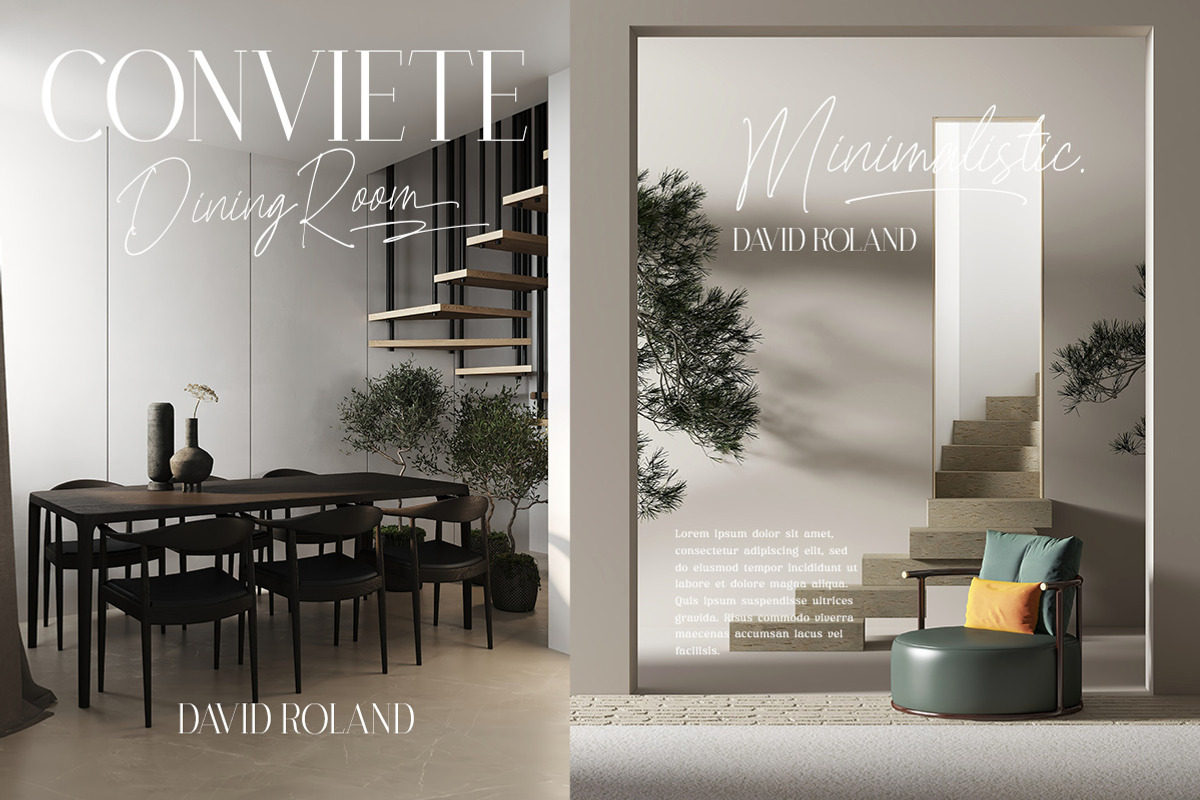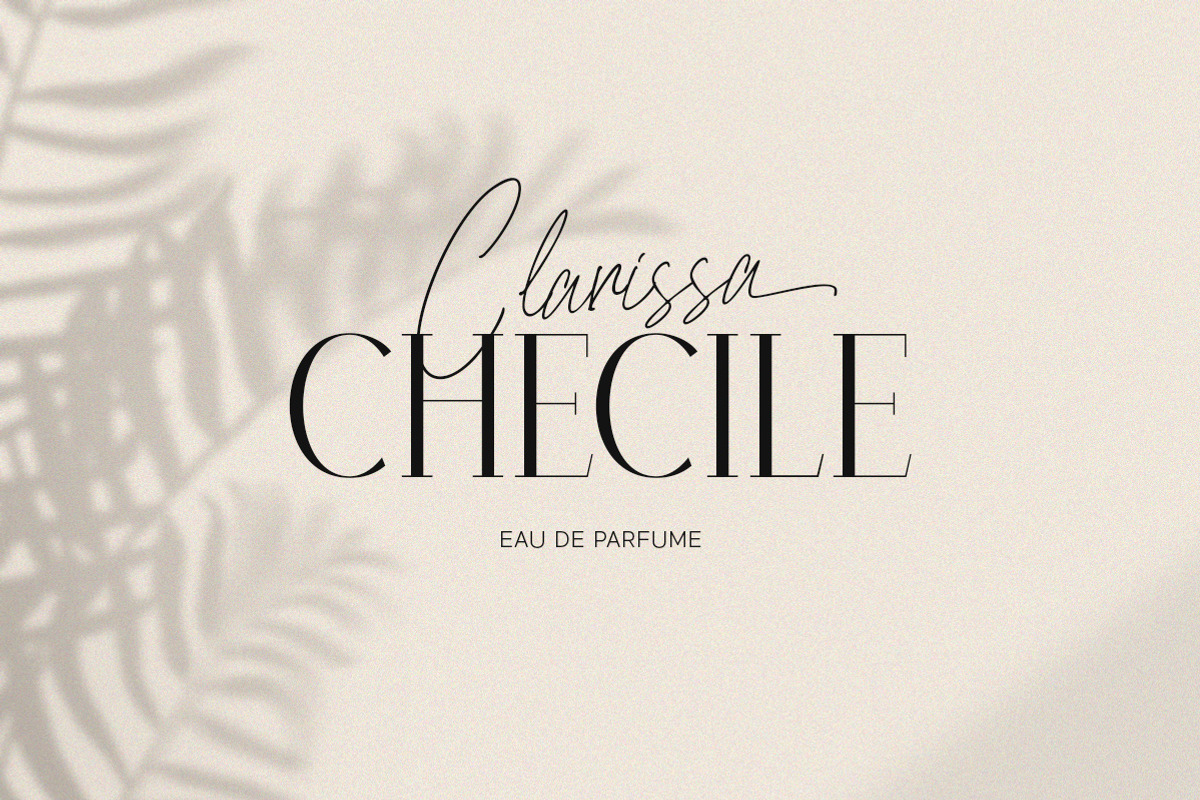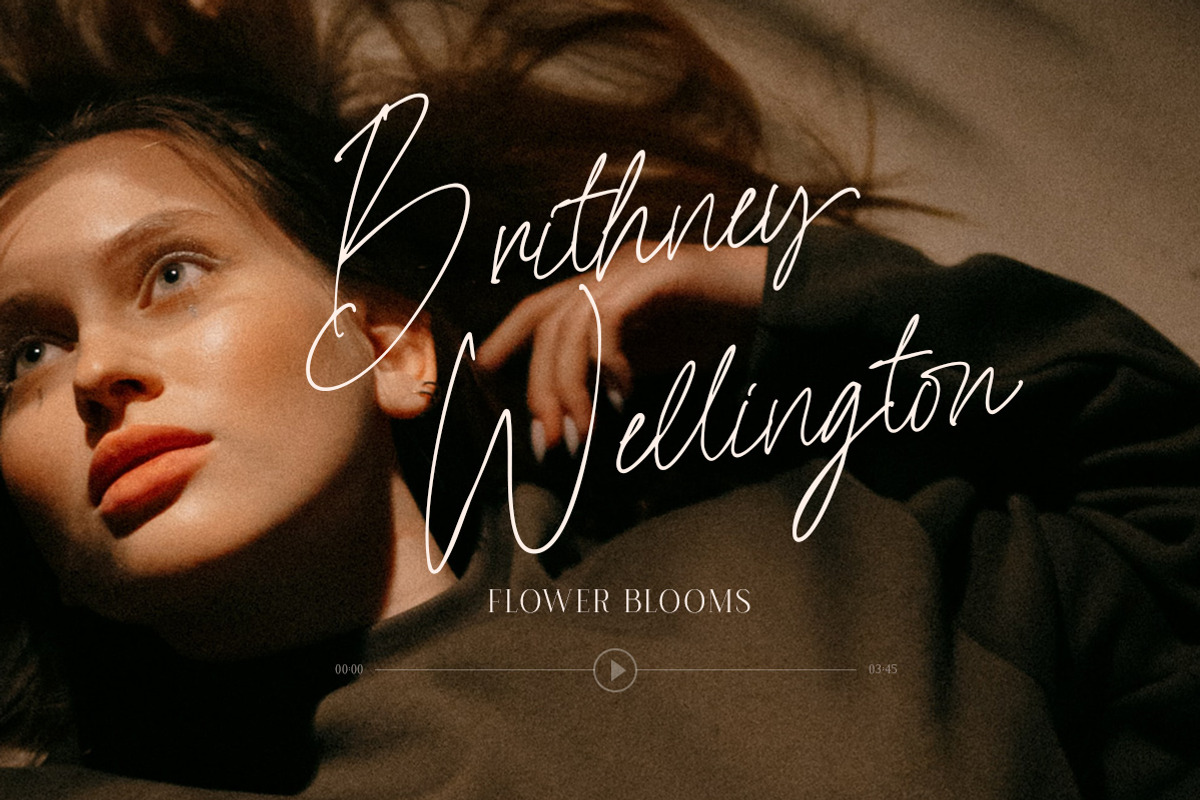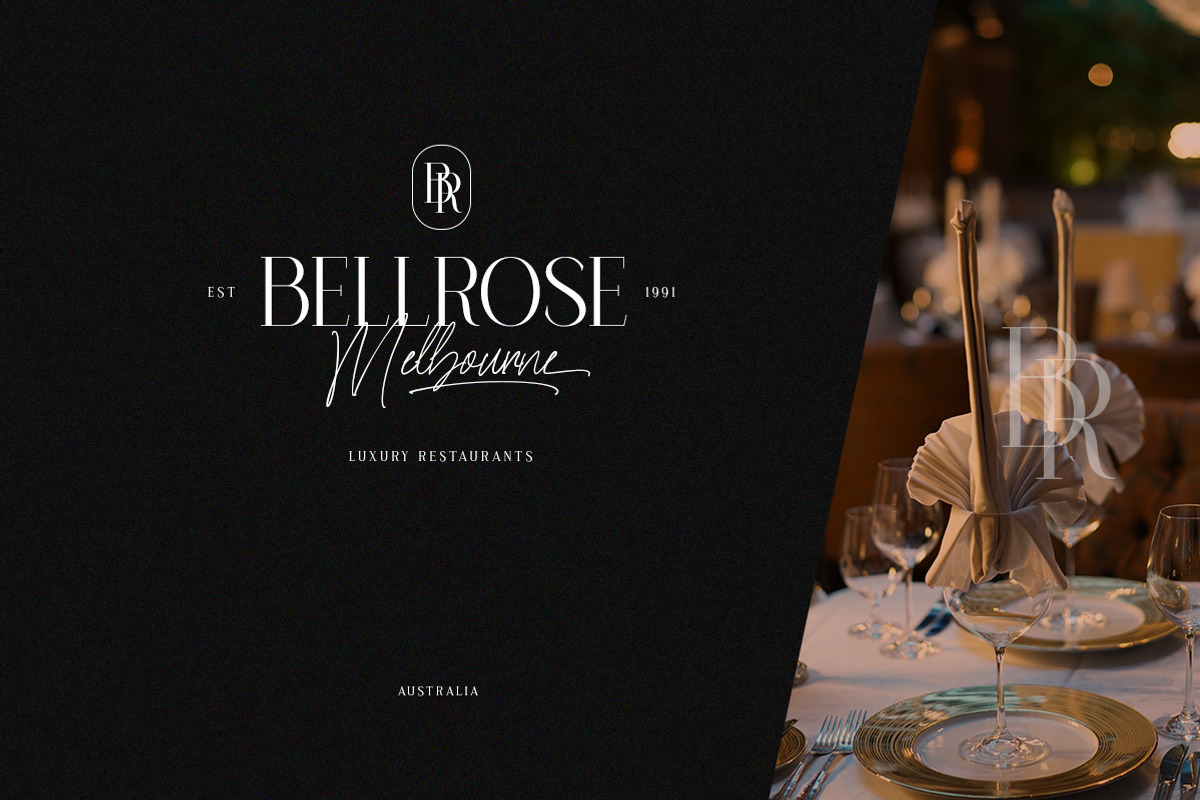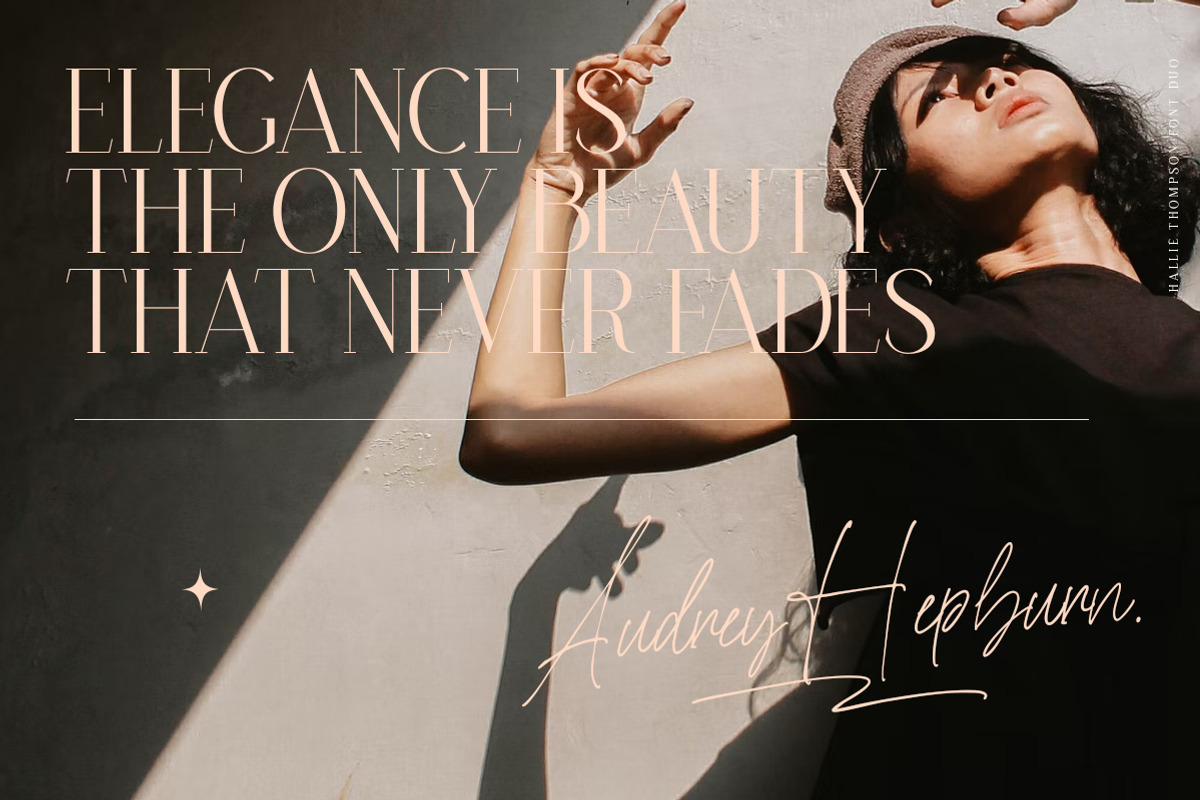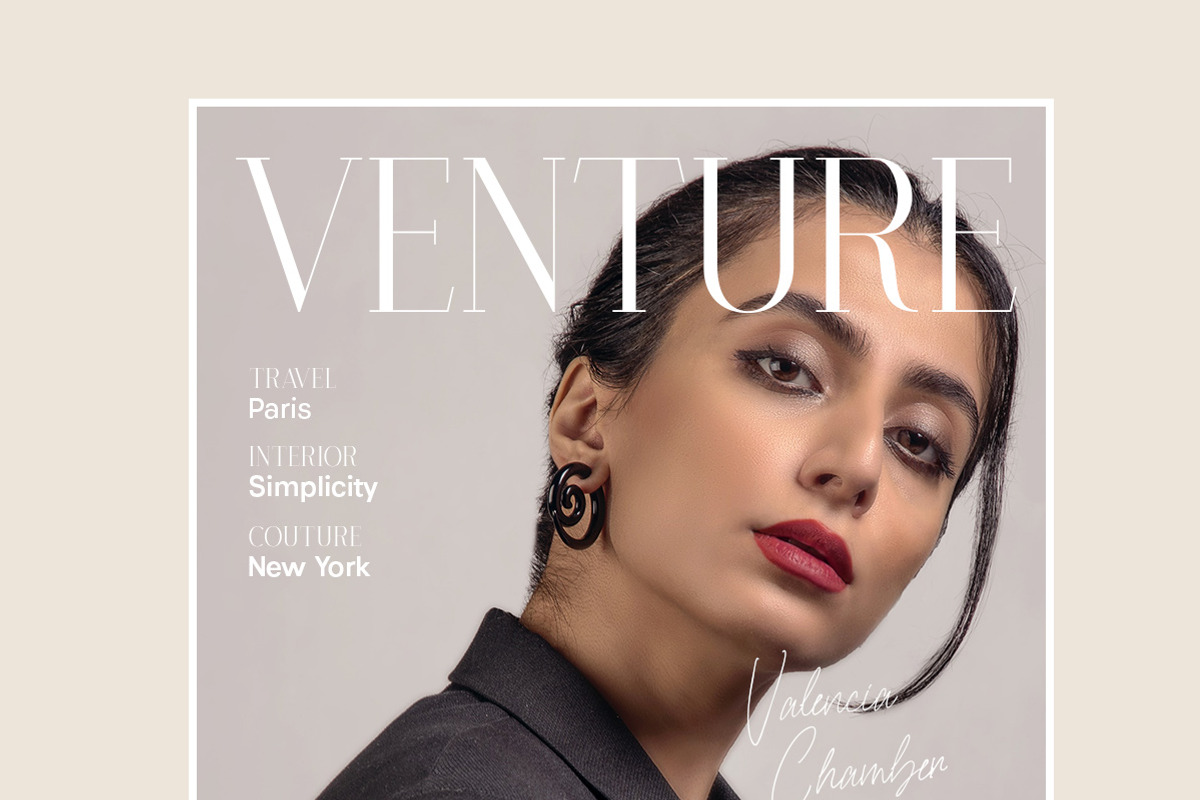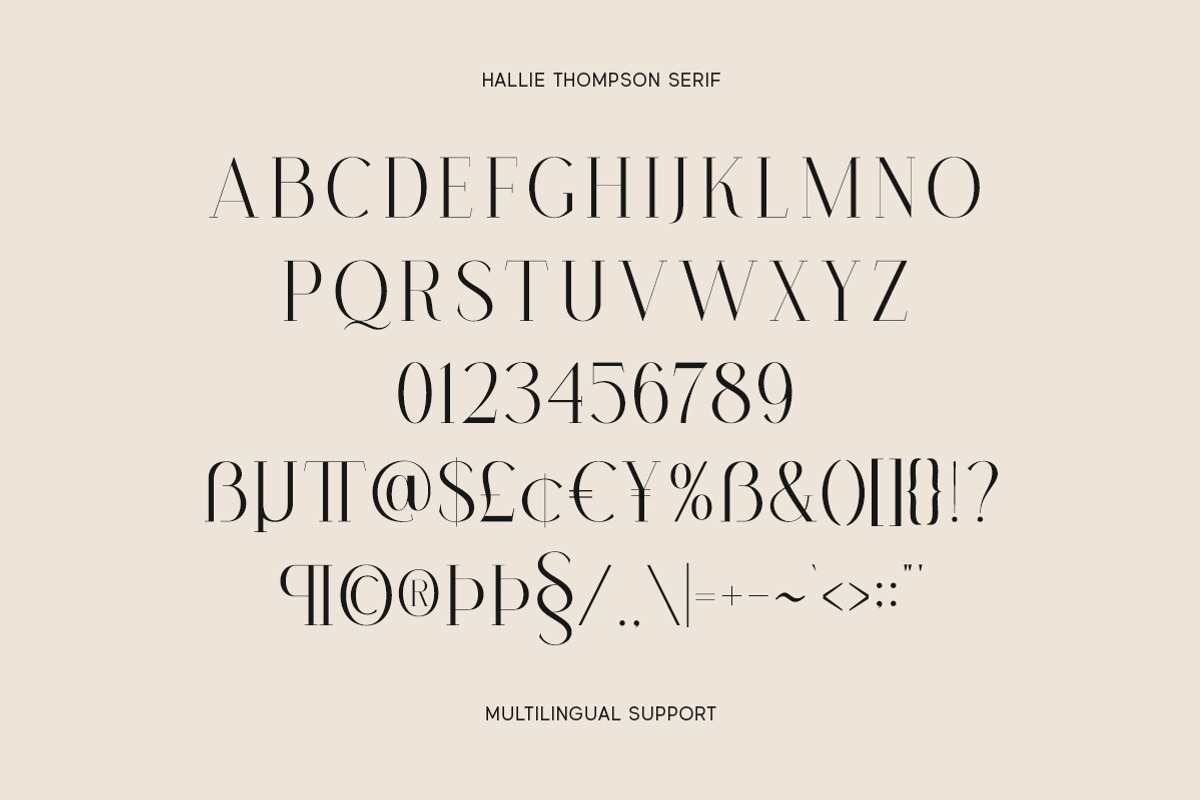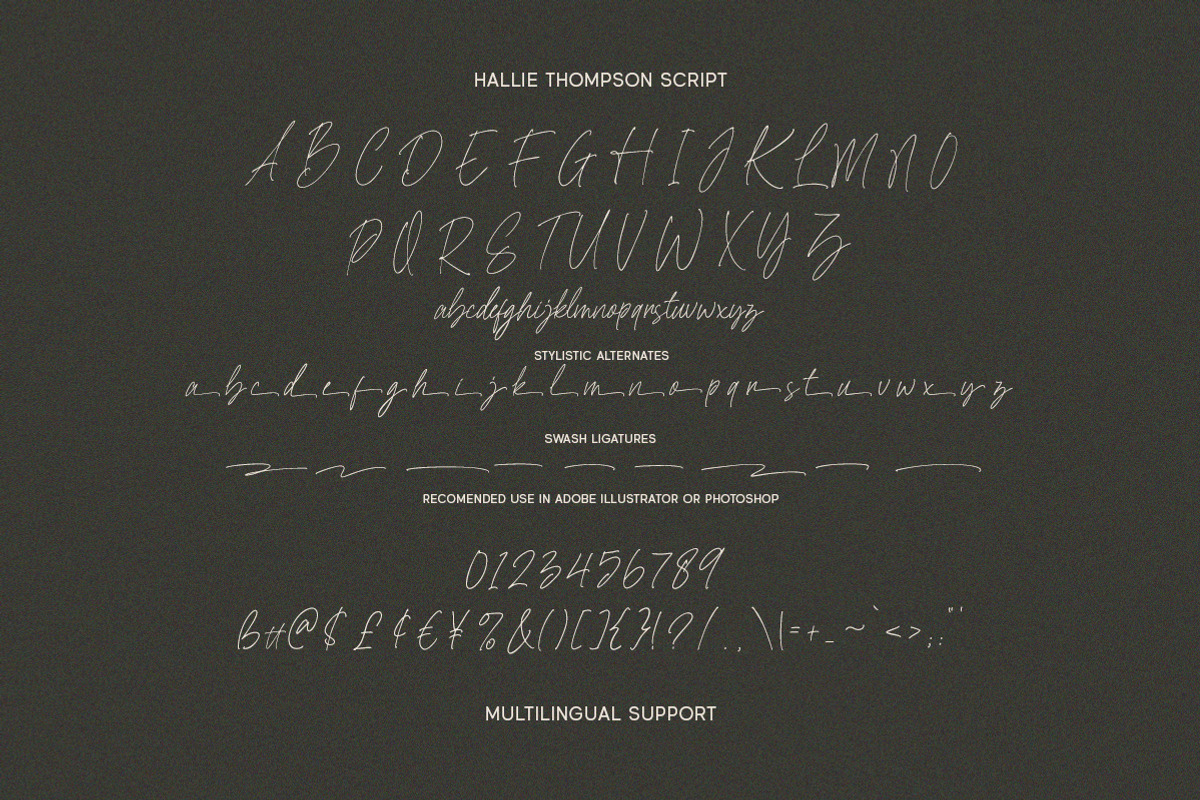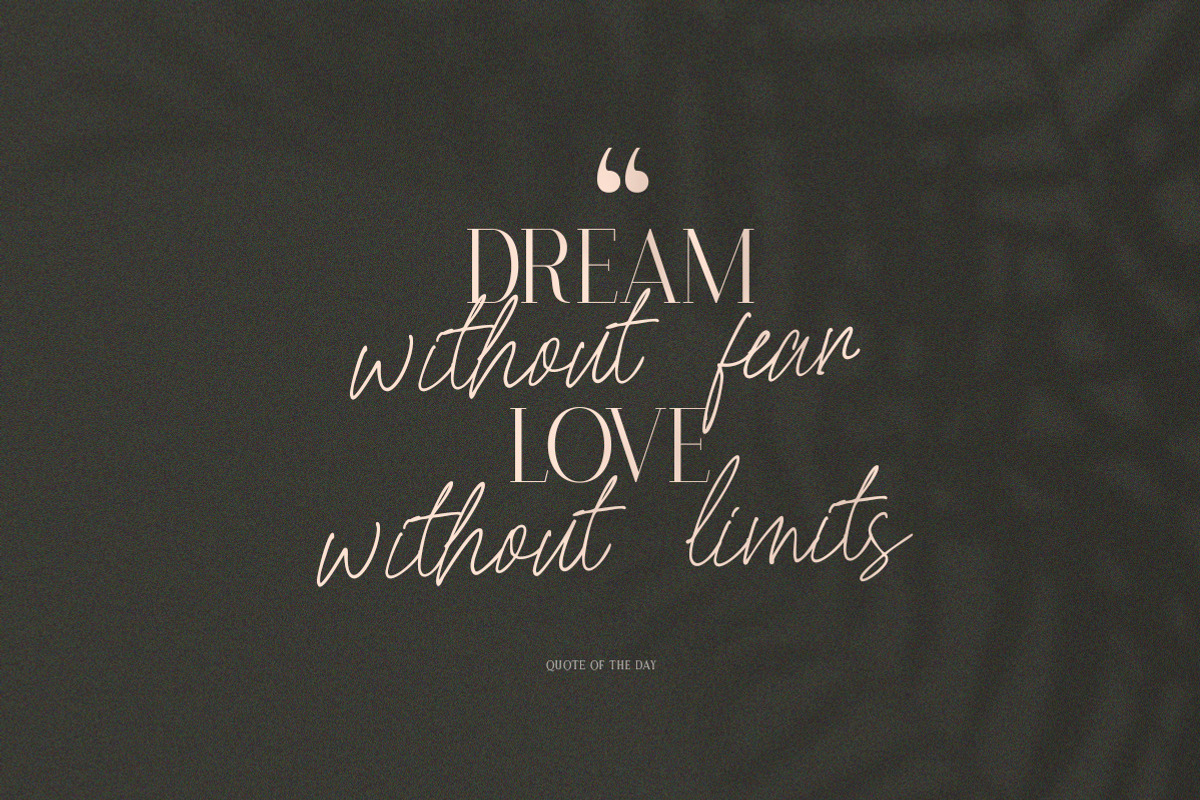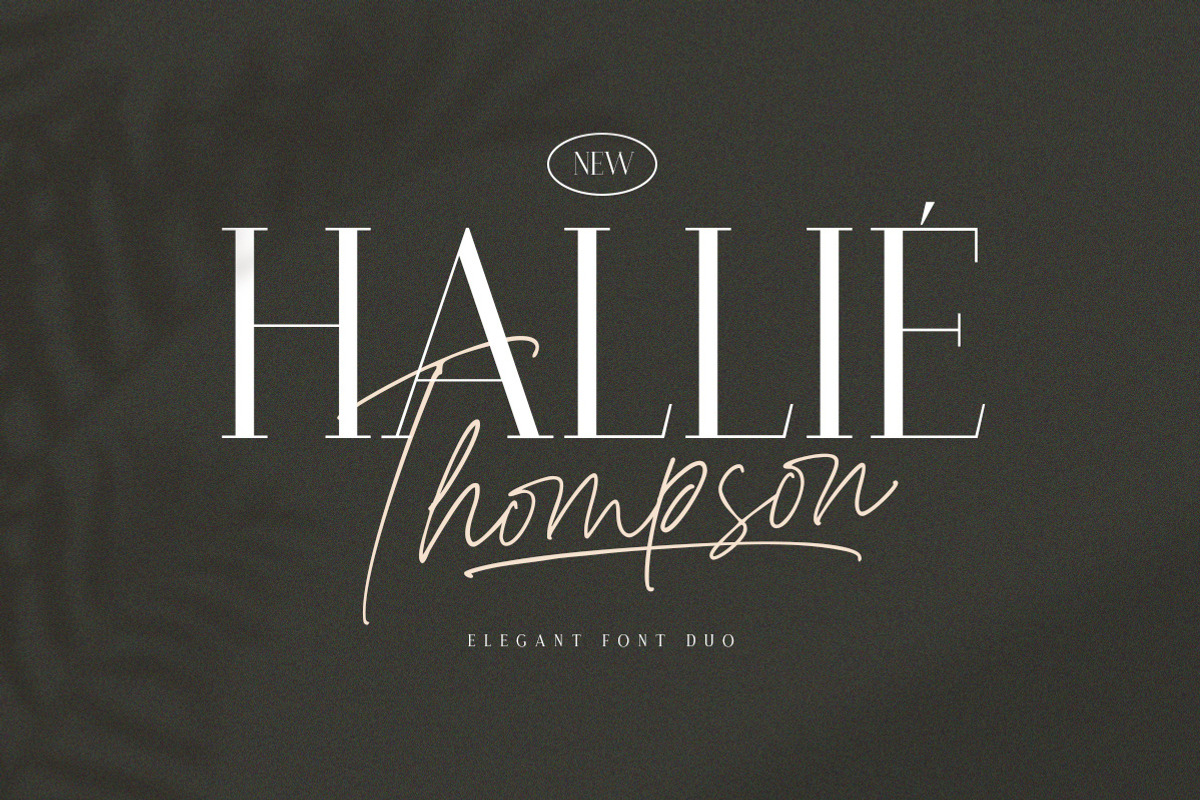
Hallie Thompson - Elegant Font Duo
Hallie Thompson is a pair of font that brings the modern and elegant feel in the same time. The serif combined with the natural hand writing script with signature style are the perfect match for you who needs a typeface for headline, logotype, apparel, invitation, branding, packaging, advertising etc.
- 2 fonts (serif and script font)
- alternates & ligatures